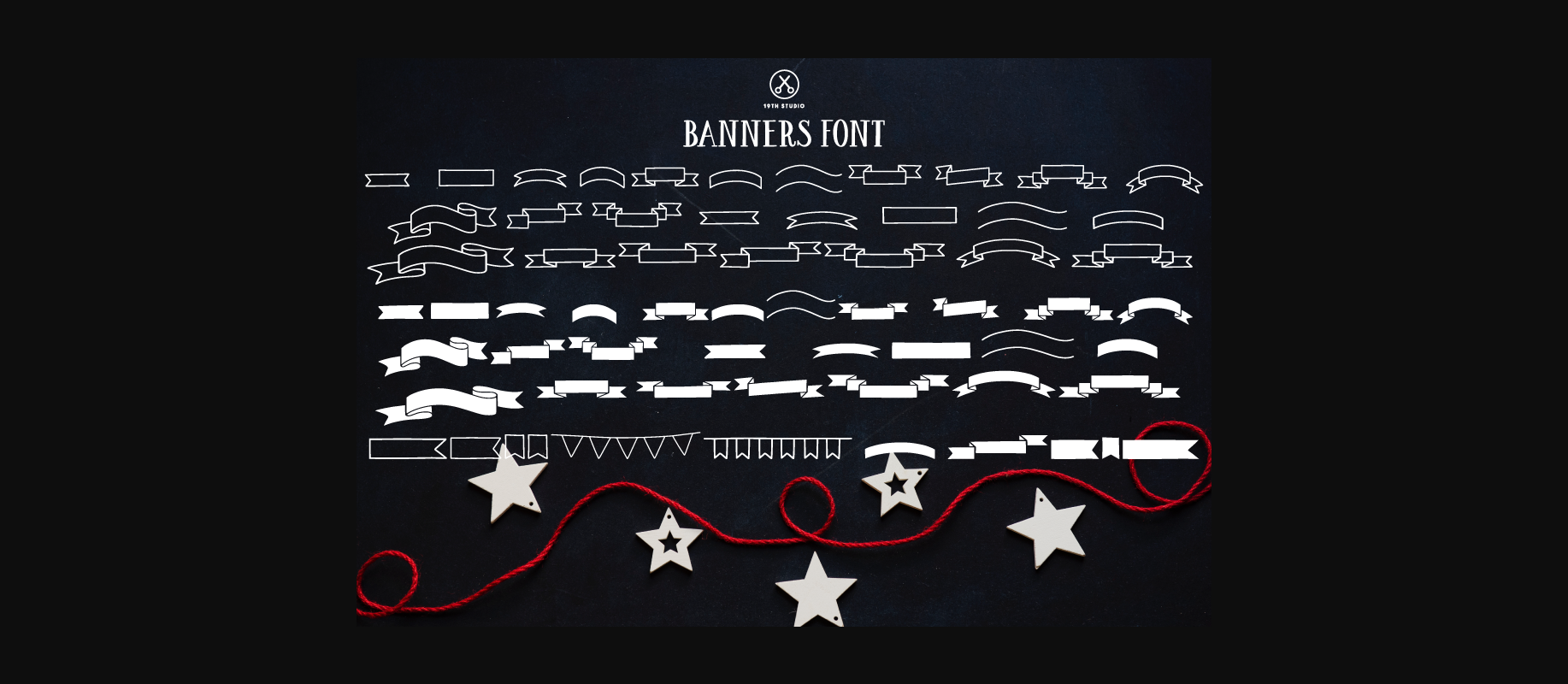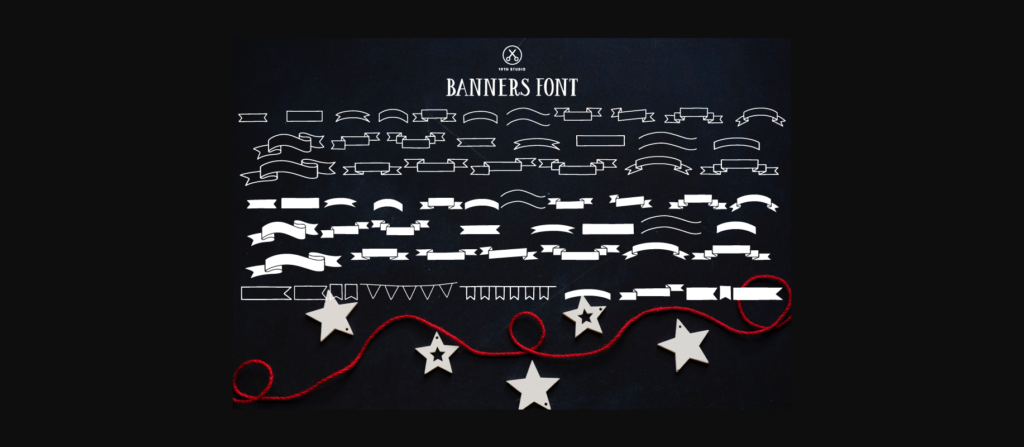
Decorative Banners Font
About Decorative Banners Font
This cute set of banners is perfect for any vintage or retro design; with solid and outlined variations, you have a large array of styles to choose from in this font set.